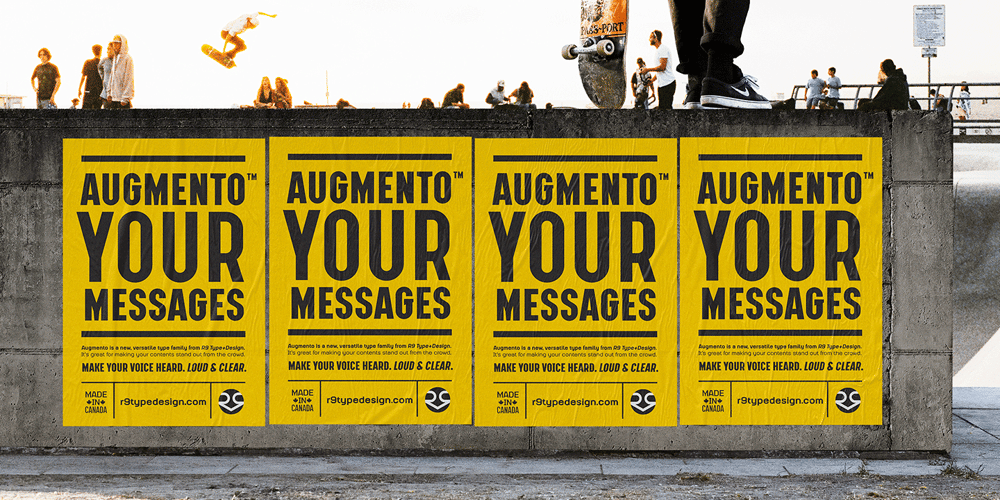
Augmento
Augmento font
Augmento Font Family was designed by Tana Kosiyabong and published by R9 Type+Design. Augmento contains 36 styles and family package options. Augmento™ is a large contemporary font family from R9 Type+Design. We designed this typeface right smack on the sweet spot between formal and casual. The rounded rectangular structure gives Augmento the corporate, trustworthy look while the quirky stems add the fun, playful feel. This unique, versatile type family is excellent for a variety of applications such as posters, packaging, editorials, and web design. The completed Augmento™ family consists of 3 widths, 6 weights, 36 styles, and over 550 glyphs each, and packs with OpenType features such as stylistic alternates, case-sensitive punctuations, and date vs fraction recognitions. It also comes with 3 sets of figures (Proportional lining, Proportional Oldstyle and Tabular lining), and supports most Latin-based languages. With all these features in your toolbox, you can make your design sing as loud (or soft) as you’d like.To find out more about Augmento™ Opentype features and type specimen, please visit www.r9typedesign.com